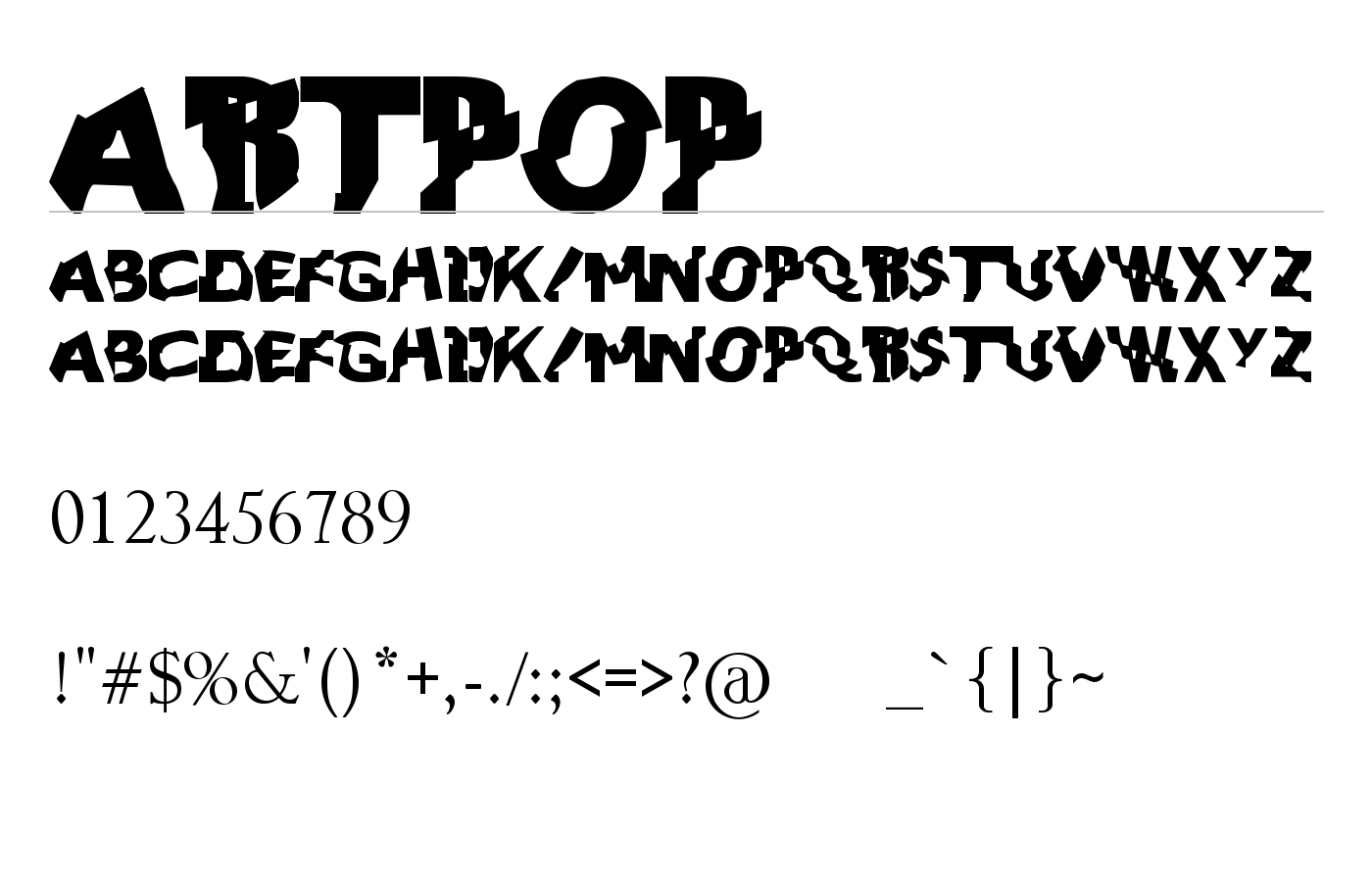
ARTPOP is a bold and playful display font with a strong, chunky presence characterized by irregular, blocky letterforms that evoke a quirky, artistic energy. Its heavy weight and angular shapes make it perfect for eye-catching headlines, logos, and creative projects that want to convey a sense of fun and individuality. This font works best where impact and personality are key, such as in poster designs, branding for artsy or unconventional businesses, and expressive editorial use.
ARTPOP Font